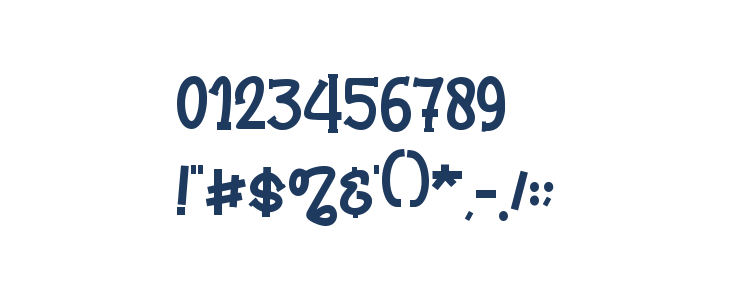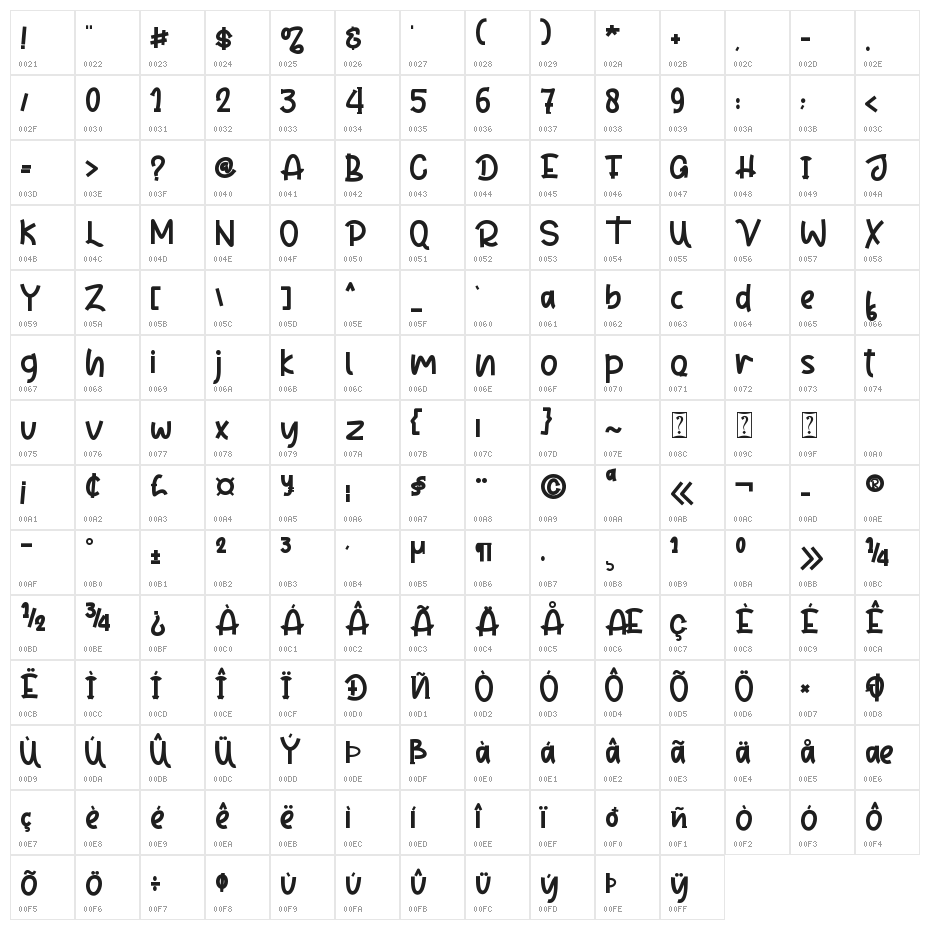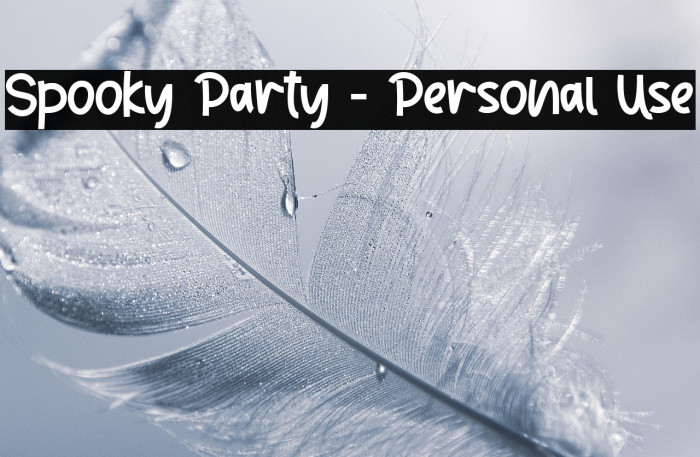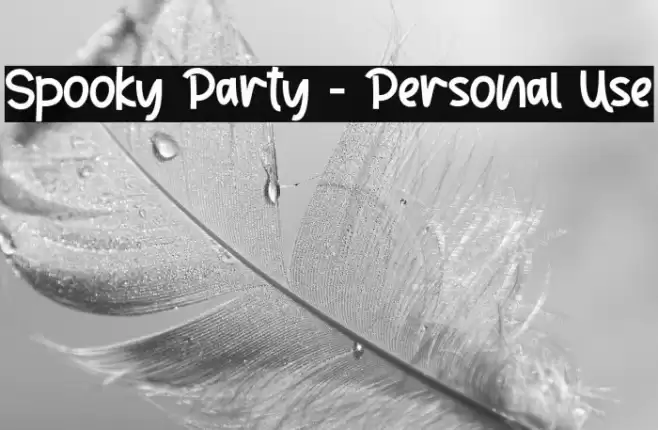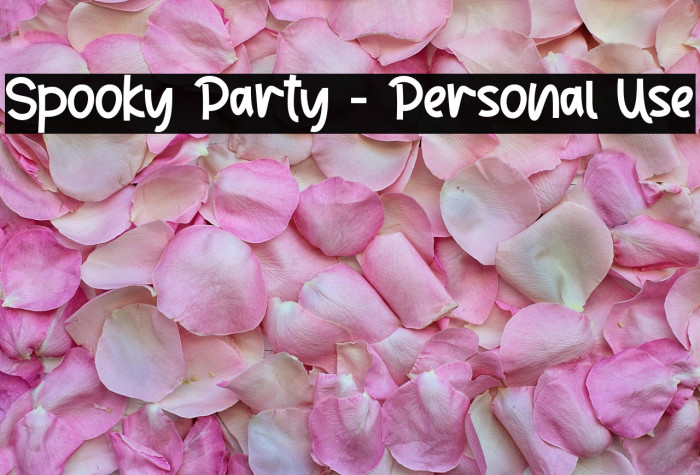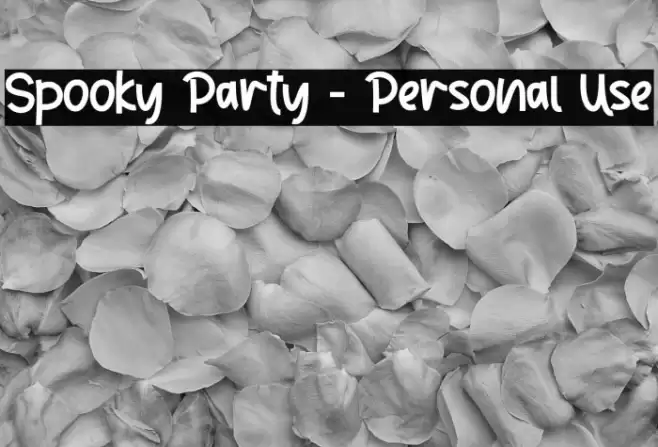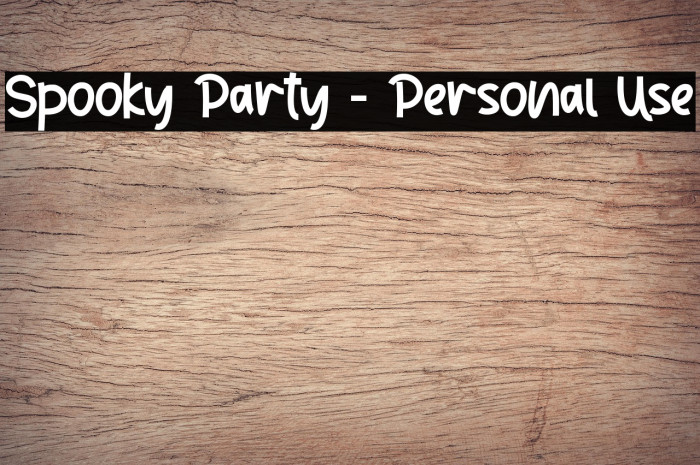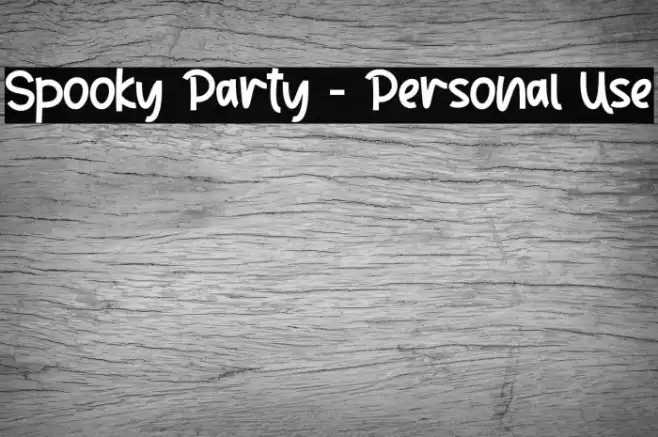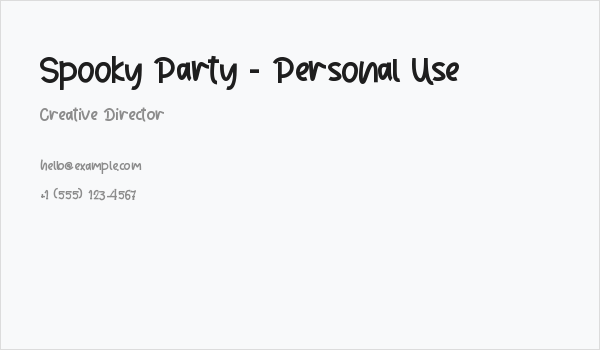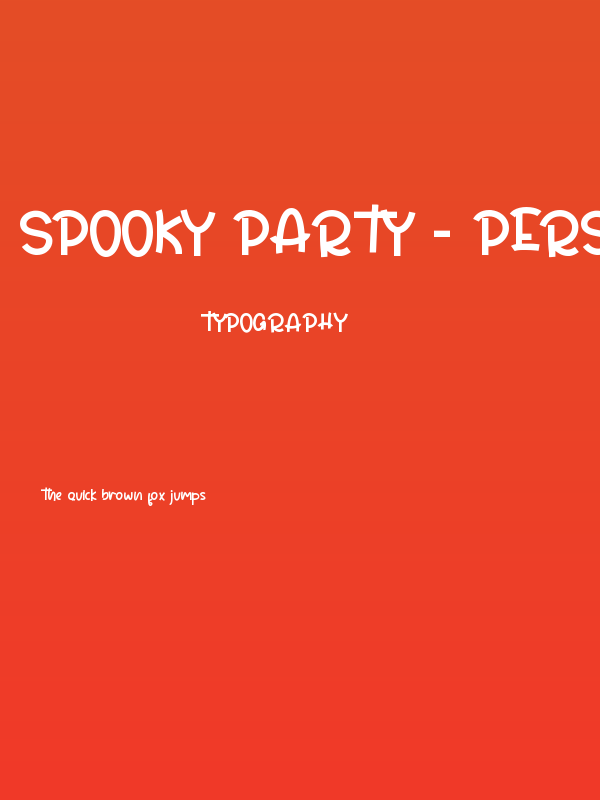
Spooky Party - Personal Use Font
Spooky Party - Personal Use Description
This playful and whimsical font features bold, rounded characters with a slightly irregular baseline, giving it a lively and energetic feel. The uppercase and lowercase letters are designed with a consistent thickness, creating a cohesive look. The numbers and special characters maintain the same playful style, making them perfect for creative projects. The font's unique character shapes and slight slant add a touch of fun and spontaneity, making it ideal for festive and informal designs.
| Proposed Projects | Ideal for party invitations, children's book covers, playful branding, and festive event posters. |